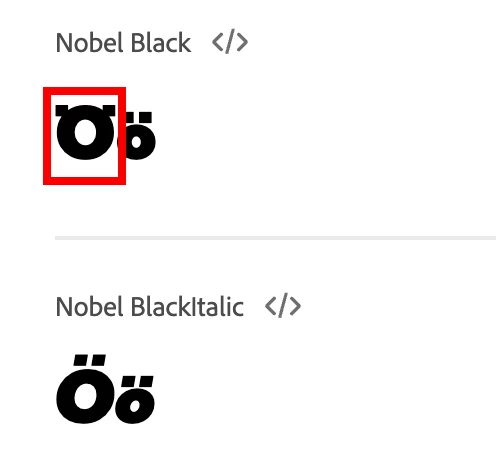
Nobel font bug : issue with the Ö letter
Who to contact if you find a mistake in certain character? In this case it's the uppercase Ö
Thank you. The team has been in dialog with the designer. Turns out it not a mistake - it supposed to look like that -  a design choice based on the original font made back in 1930.